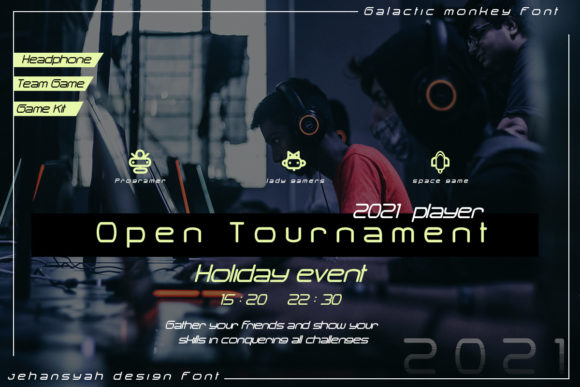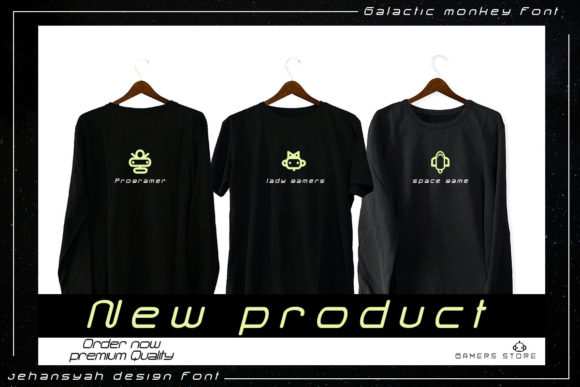
Galactic Monkey Font
Galactic Monkey Font is a cool and adaptable display font. This font is suitable for designs such as t-shirts, sportswear, posters, logos, advertisements, clothing, and more.
Galactic Monkey Font is a cool and adaptable display font. This font is suitable for designs such as t-shirts, sportswear, posters, logos, advertisements, clothing, and more. Whatever the topic, this font will be a great asset to your font collection, as it has the potential to enhance any creation.